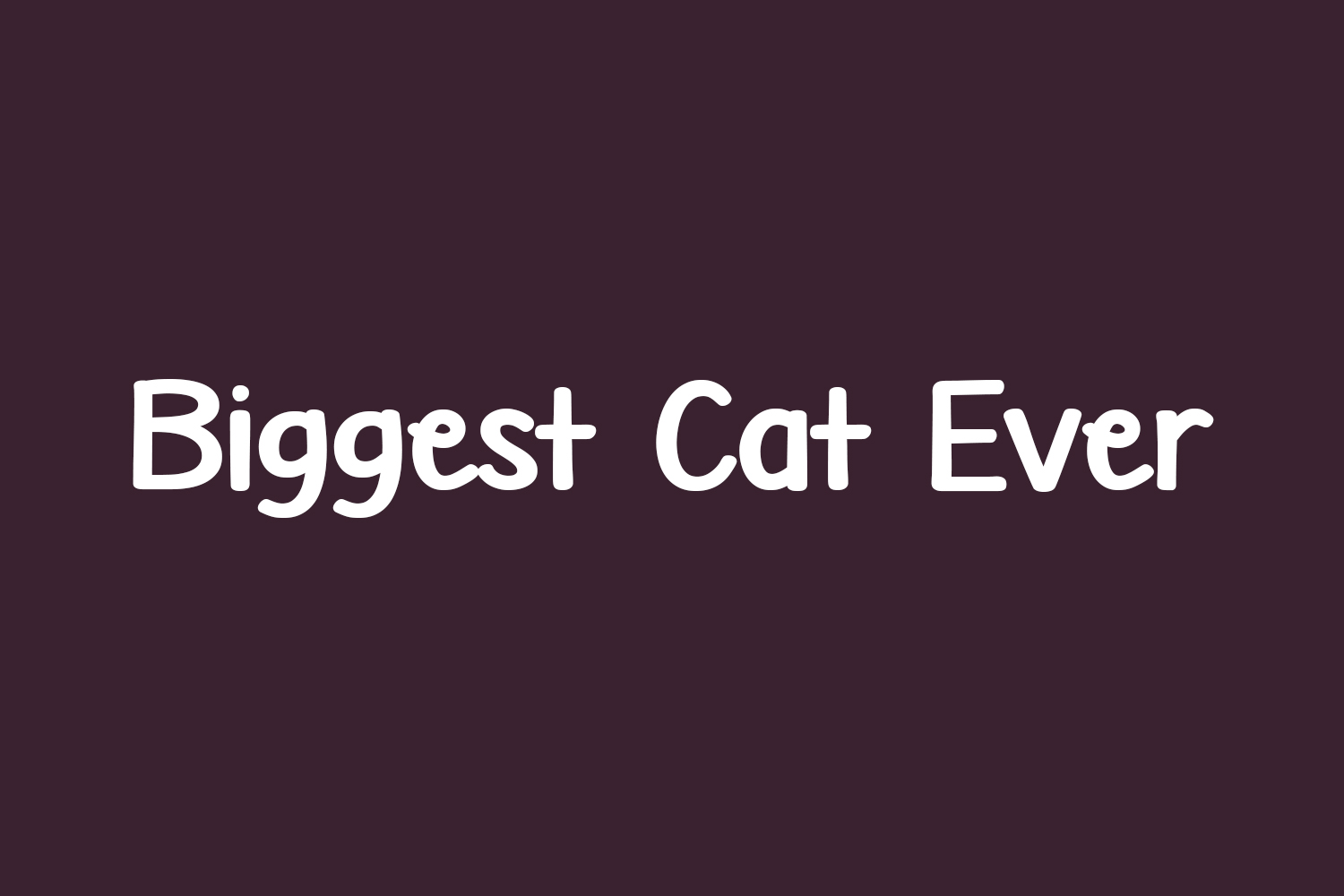
Biggest Cat Ever is a bold, playful, and warm handwritten brush script designed by Misti’s Fonts to bring fun and charm to your creative projects. With its chunky strokes and casual flow, this free decorative typeface works perfectly for crafting engaging logos, children’s books, social media graphics, posters, or casual brand identities. Available in TTF format — ideal for designers seeking a friendly, hand-drawn look that instantly connects with young audiences.
- Playful Brush Style: Chunky strokes and dynamic curves create a fun, lighthearted appearance perfect for kids’ visuals.
- Ideal for Children’s Projects: Perfect for toys, nursery décor, school materials, or cartoon-style branding needing a warm tone.
Biggest Cat Ever shines across a variety of creative applications:
- Logos & Branding: Adds warmth and personality to brand identities for toy stores, daycare centers, or lifestyle blogs with a playful tone.
- Kids’ Books & Illustrations: Perfect for story titles, character names, or illustrations needing a child-friendly feel.
- Social Media Graphics: Creates bold text overlays for Instagram Stories, Pinterest pins, or TikTok videos with a casual twist.
- Packaging Design: Great for product labels on candies, mugs, notebooks, or novelty items aimed at children and families.
- Event Posters: Brings energy to birthday party flyers, school events, or summer camp banners.
Design Tips with Biggest Cat Ever
- Glyphs: Uppercase (A-Z), numerals, basic punctuation.